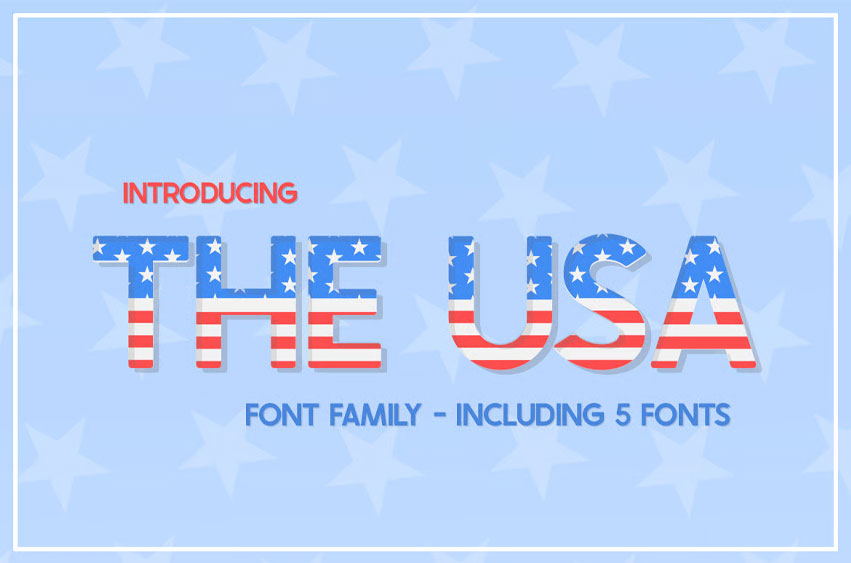
The USA Font
The USA Font is suitable for flyers, posters, novels, letterheads, or any design requirements you want to be awesome.
It will certainly amaze your readers.